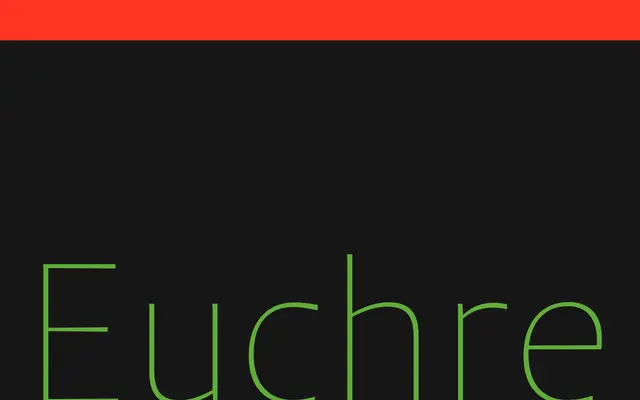
Euchre
Okay Type · Jackson Showalter-Cavanaugh
A text sans by Jackson Showalter-Cavanaugh with measured contrast and open structure, awarded TDC71 Judge's Choice and a Communication Arts trophy.
Designed primarily for running text, Euchre uses comfortable proportions and a carefully calibrated level of contrast that keeps copy readable without drawing attention to itself. Seven weights from ExThin to Black are available in both standard and condensed widths, each with matching italics, and a variable font adds a Grade axis for fine-tuning text density on press or screen without triggering reflow. OpenType features include small caps, ligatures and stylistic sets, and the variable format reduces webfont payload to roughly a quarter of the static family's footprint.
A text-optimised sans with calibrated contrast and open apertures, characteristics consistent with humanist sans design; the angled stress and organic rhythm distinguish it from geometric or grotesque models.